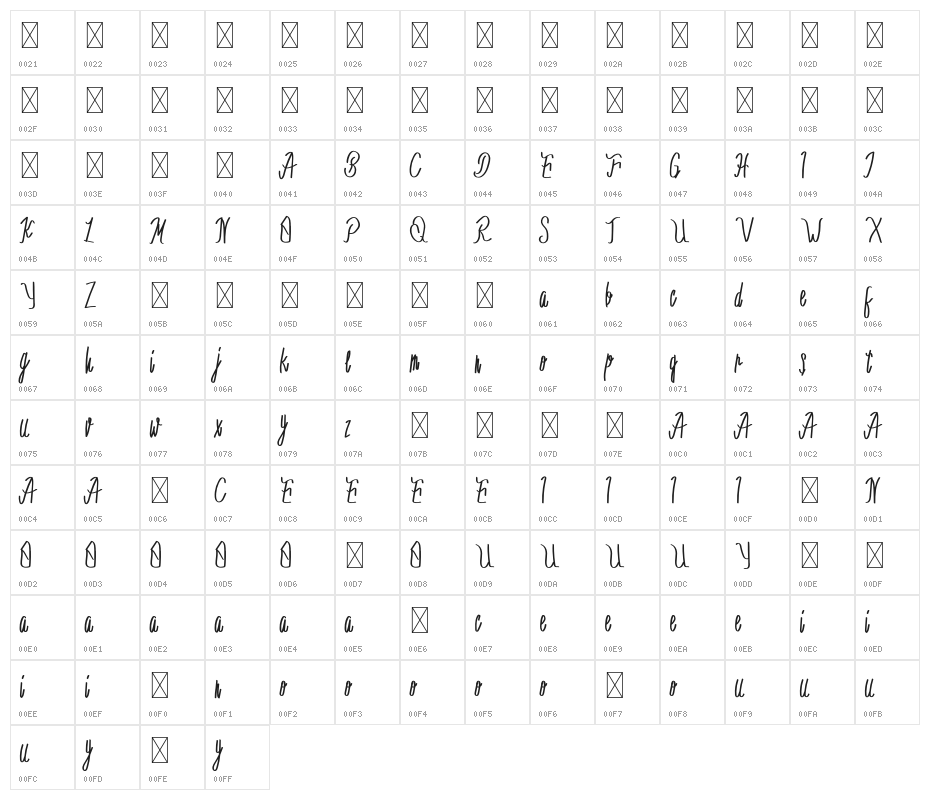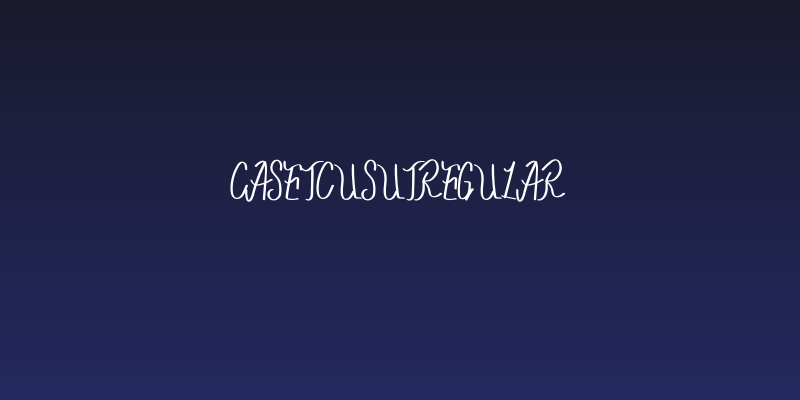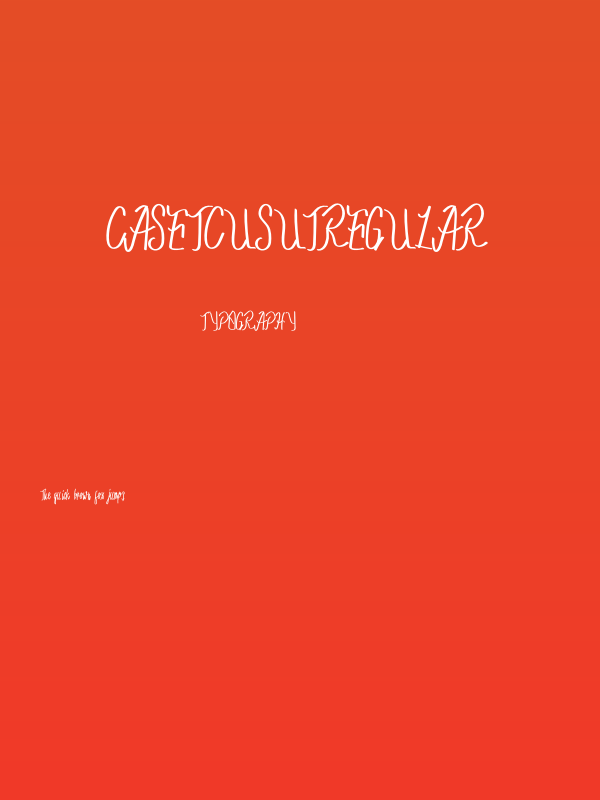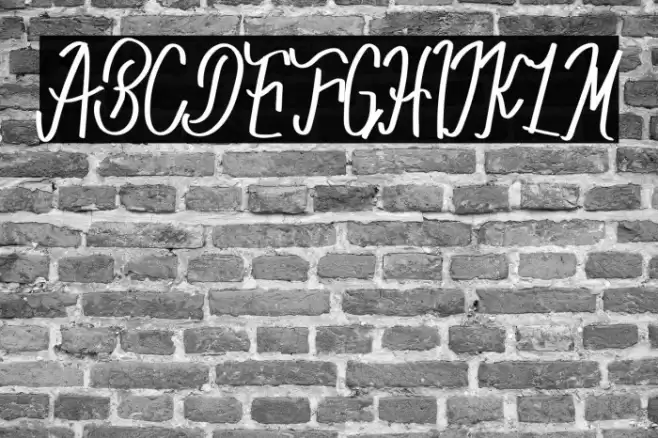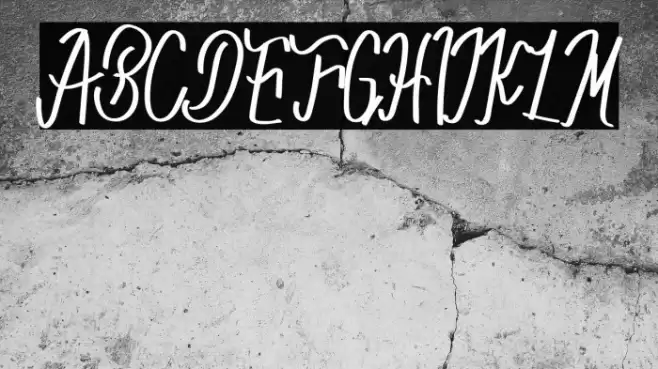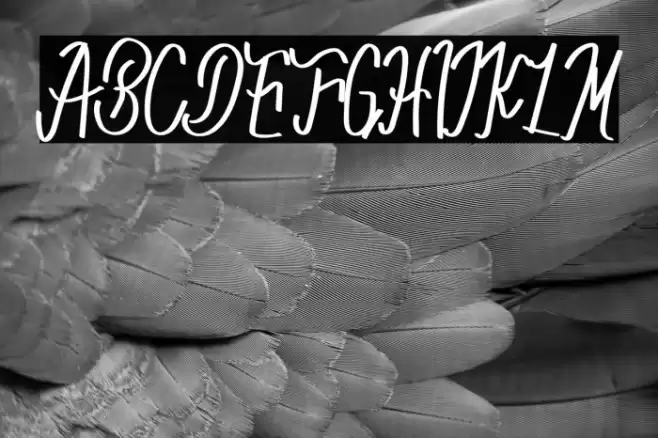
CasetCusutRegular Font
CasetCusutRegular Description
This font features a dynamic and flowing script style, characterized by its elegant and slightly whimsical appearance. The uppercase letters are tall and slender, with a slight slant that adds a sense of movement and grace. The lowercase letters are more compact, maintaining the same fluidity and connectedness, which is typical of cursive handwriting. The strokes vary in thickness, providing a medium contrast that enhances readability while maintaining an artistic flair. The overall design is modern yet retains a classic script charm, making it versatile for various design needs.